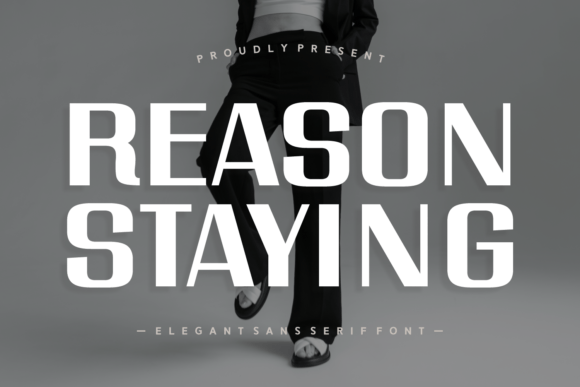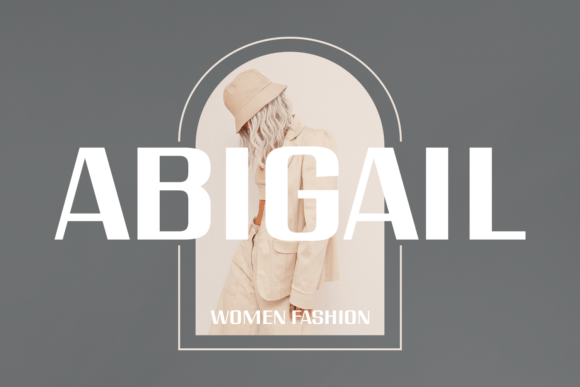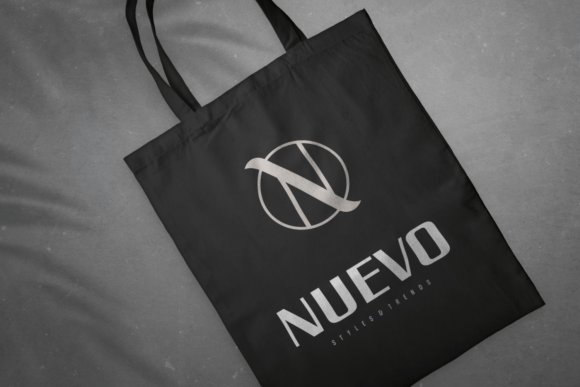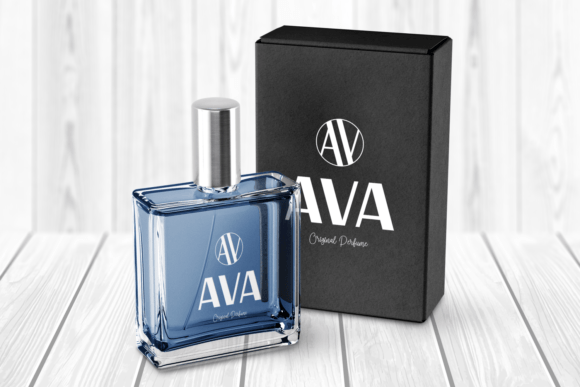
Reason Staying Font: Modern & Elegant Sans Serif for Branding Kits
About the Reason Staying Font
We are excited to introduce Reason Staying Font, a must-have typeface for any serious designer. Reason Staying is a simple and elegant sans-serif typeface. This font exudes a sense of delicacy and sophistication, making it perfect for projects that require a refined and graceful aesthetic. It works well for both headlines and body text, making it suitable for everything from branding materials to editorial layouts.
However, its delicate nature makes it less suitable for large blocks of body text or UI elements where high readability is paramount. Reason Staying shines brightest in headlines, logos, and short-form text for branding projects emphasizing sophistication and elegance. Think high-end fashion, luxury goods, or minimalist design.
Pairing it with a warmer serif like Garamond for body copy creates a sophisticated contrast, while a geometric sans-serif like Futura adds a modern edge. For a more playful feel, consider pairing it with a handwritten script font, but keep the script application limited to avoid visual clutter.
Reason Staying’s overall personality is sophisticated and refined, lending itself to brands seeking to convey a sense of understated luxury and quality.
Reason Staying Font Usage Examples
Reason Staying Font Example